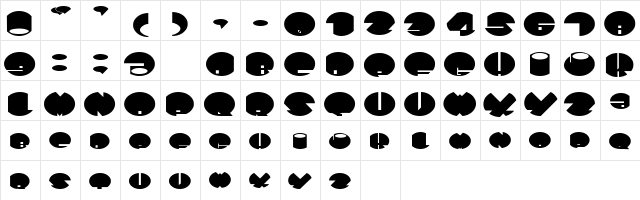
SpaceAce Regular Free Font
SpaceAce Regular
Design Context for SpaceAce
SpaceAce is a composed and adaptable typeface that performs quietly and consistently across a wide range of design contexts.